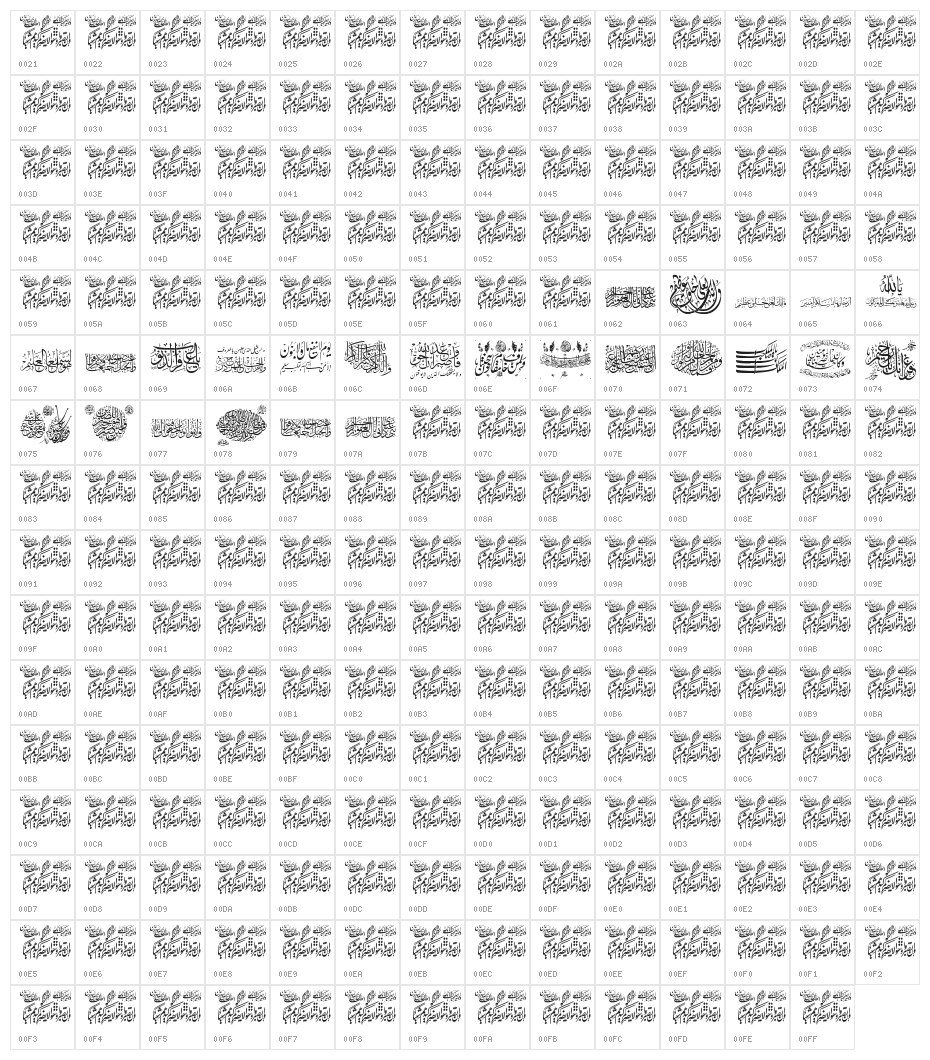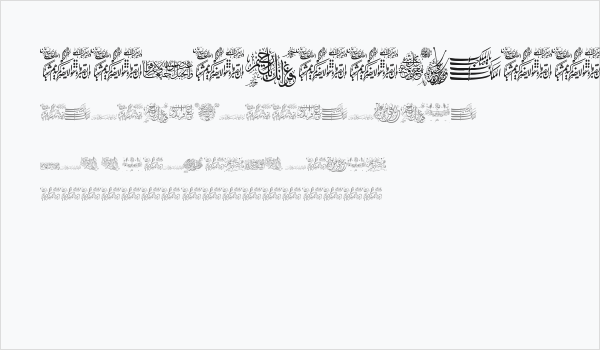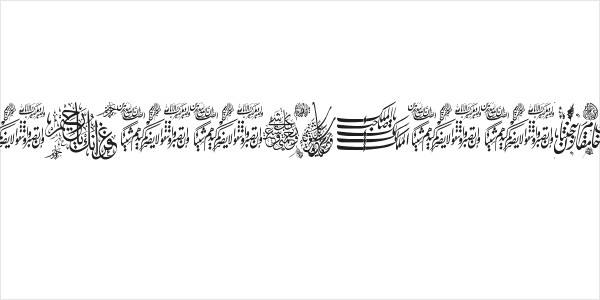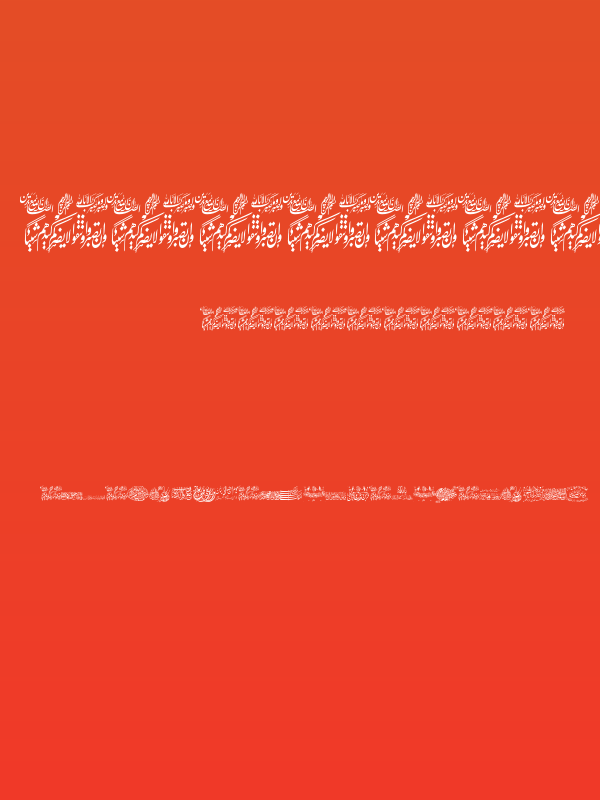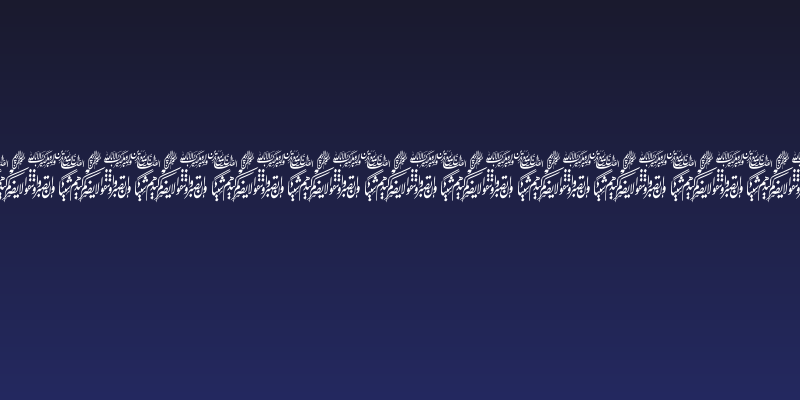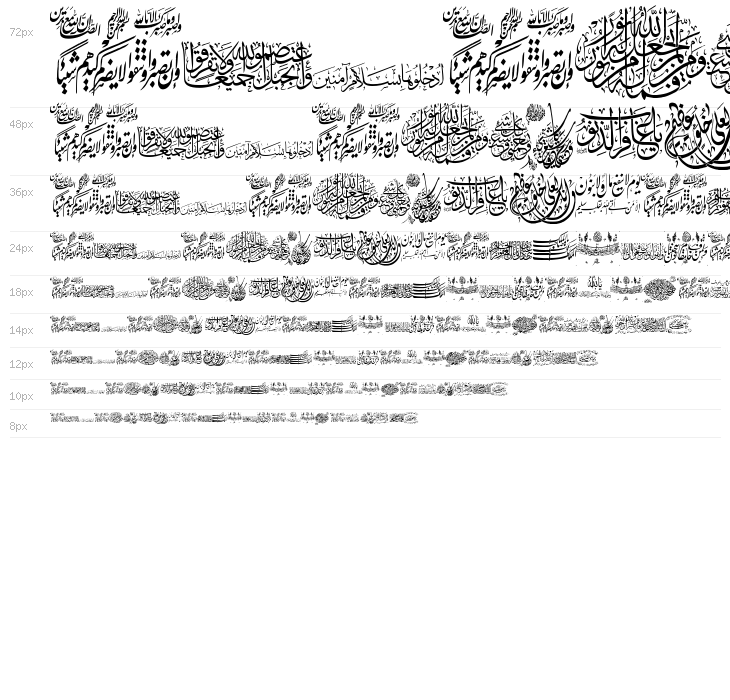
Aayat Quraan 15 Font
Aayat Quraan 15 Description
Highly ornate Arabic script with intricate flourishes and decorative elements, featuring varying stroke thickness and elaborate ligatures, commonly used in religious or ceremonial contexts.
| Overall Style | Decorative, Traditional, Religious |
| Use Case | Religious scripture, ceremonial headings, artistic calligraphy, decorative borders. |
| Proposed Projects | Religious texts, ceremonial documents, art prints, decorative panels, cultural event materials. |